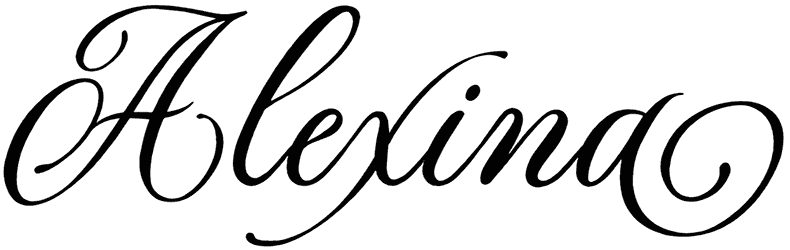
Golden Bloom Font
Golden Bloom is like a direct line to the author’s soul, which can depict the unique features and subtleties of human sequences. This feminine font has an organic look and beautifully describes imperfections to add a sense of originality.
So if you want a personal touch and remind the nature of pen and paper, Golden Bloom is a good choice. So the next time you want to design a wedding card, invitation, or album cover, take help from this script font.